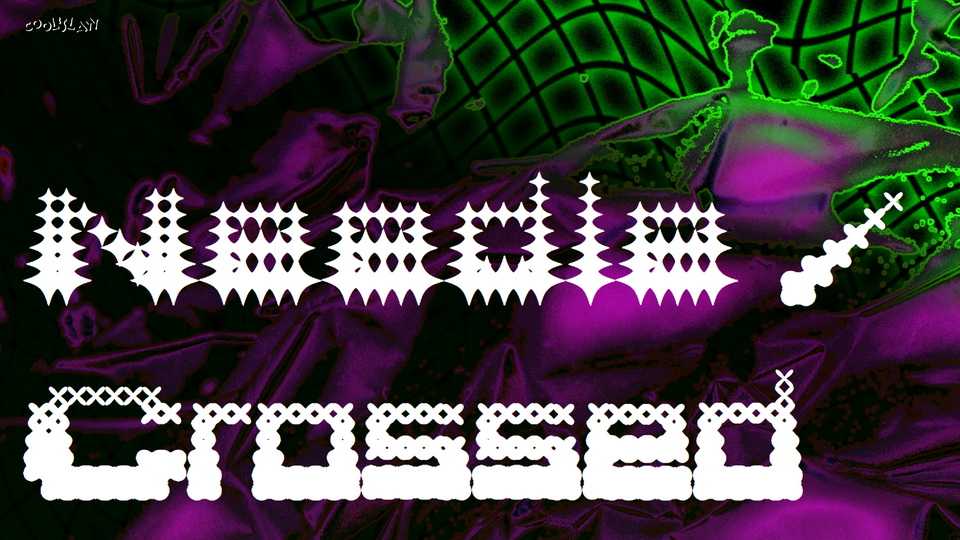
Needle Crossed Font › Fontesk – Download Grátis
Download Needle Crossed font, an experimental display typeface that bringing the party to you in two different styles. The best for posters, album artworks and typography compositions.